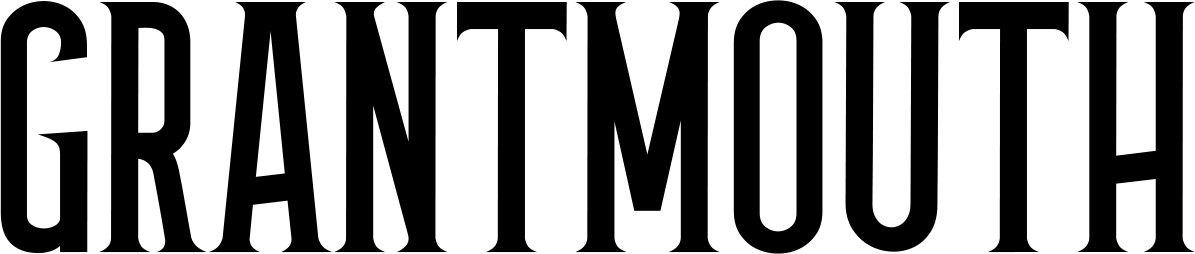
Grantmouth Font
Do you know what would look cool with Grantmouth? A book title containing an adventurous story within, an eye-grabbing header for your websites, and sure enough, a logotype emphasizing experience and commitment. Brilliant, isn’t it?
The only thing this retro barbershop font lacks is the set of lowercase, but its strong vintage style indeed makes up for that. Download this American tattoo font now and let it take your text to a whole other level!